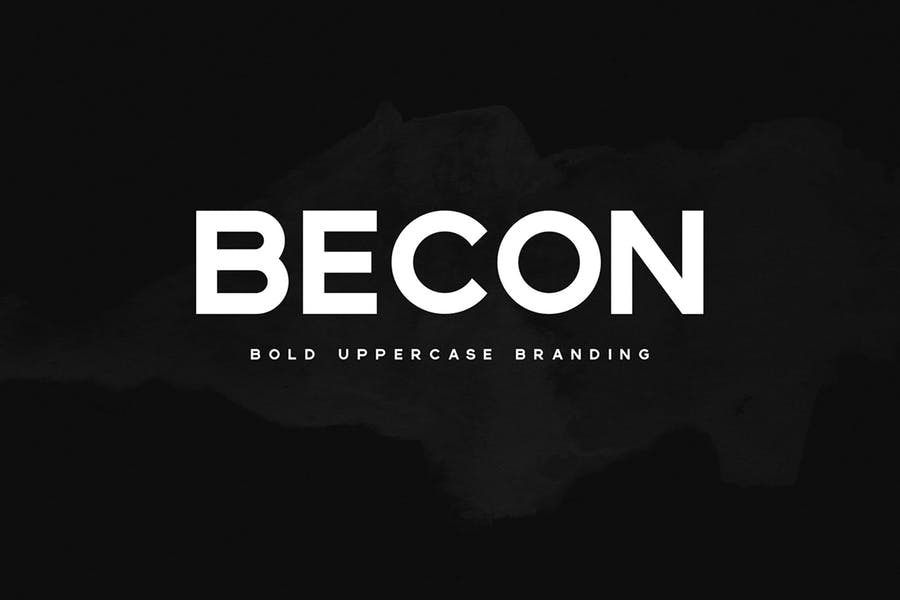
Becon Font
Becon Font is perfect for modern tech startup branding, innovative app interfaces, contemporary web design, digital marketing campaigns, minimalist corporate identity, and progressive business communications. This forward-thinking typeface works exceptionally well in software company presentations, technology conference materials, and cutting-edge product launch campaigns.
What makes Becon Font so exciting is its clean, contemporary design that perfectly balances modern simplicity with distinctive character. The font features geometric precision with subtle humanist touches that create exceptional readability while maintaining a progressive, tech-forward personality. Its sleek aesthetic demonstrates remarkable versatility and innovation, making it ideal for brands seeking to convey reliability, modernity, and technological advancement.
Becon Font comes in comprehensive weight variations including Thin, Light, Regular, Medium, Bold, and Black styles. The font family also includes matching italic versions, extended character sets, and contemporary symbols that enhance digital functionality and provide extensive creative possibilities for modern design applications.
The font's optimized construction ensures excellent screen readability across various digital platforms while maintaining its distinctive modern character. Professional designers appreciate its comprehensive OpenType features, including stylistic alternates, tabular figures, and advanced kerning that enhance both digital and print applications.
Becon Font has rapidly gained recognition among creative professionals working with technology and innovation brands. Its ability to convey modern reliability and progressive thinking makes it an invaluable asset for companies seeking to establish trustworthy, forward-thinking identities in competitive digital markets.